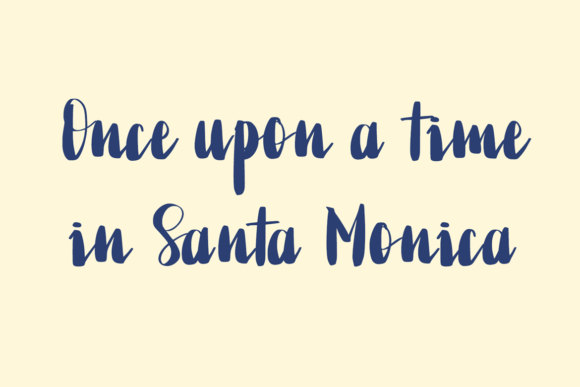
Astrida Font
Astrida is a whimsical and genuine paint brushed display font. Expertly designed to make your creation look out of this world, this font will look gorgeous on a variety of ideas.